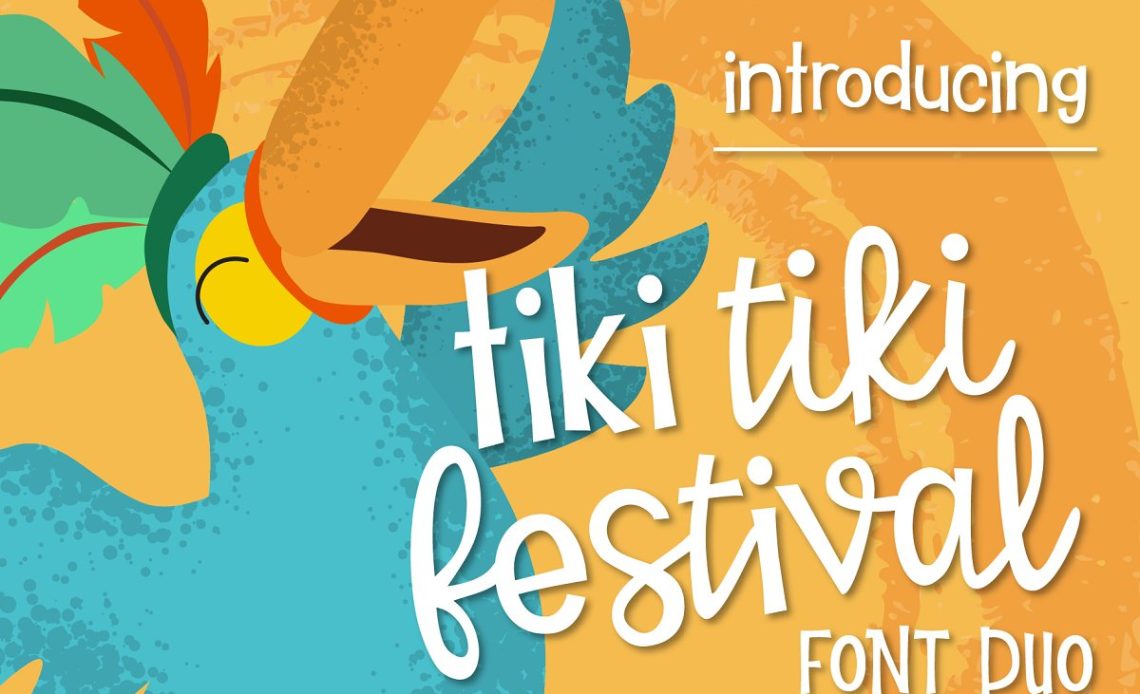
Looking for the perfect font to elevate your Christmas card labels? Look no further than Tiki Tiki Festival Font Duo! Created by the talented designer Tu Nguyen, this sans serif font family is guaranteed to captivate and impress.
Inspired by the end of summer vibe, Tiki Tiki Festival Font Duo is the ultimate choice for adding a touch of warmth and festivity to your designs. Whether you're a professional designer, social media enthusiast, or craft lover, this PUA-encoded font is a must-have in your creative arsenal.
But what truly sets Tiki Tiki Festival Font Duo apart? It's the perfect blend of style, versatility, and holiday charm. With its eye-catching and contemporary design, this font is sure to make your Christmas card labels stand out from the crowd. Let Tiki Tiki Festival Font Duo be your secret weapon in creating stunning, personalized greetings that will leave a lasting impression.
Don't miss out on the opportunity to enhance your designs and evoke emotions with Tiki Tiki Festival Font Duo. Take your Christmas card labels to the next level and spread joy and cheer with every word. Unleash your creativity and let Tiki Tiki Festival Font Duo be your trusted companion this holiday season.